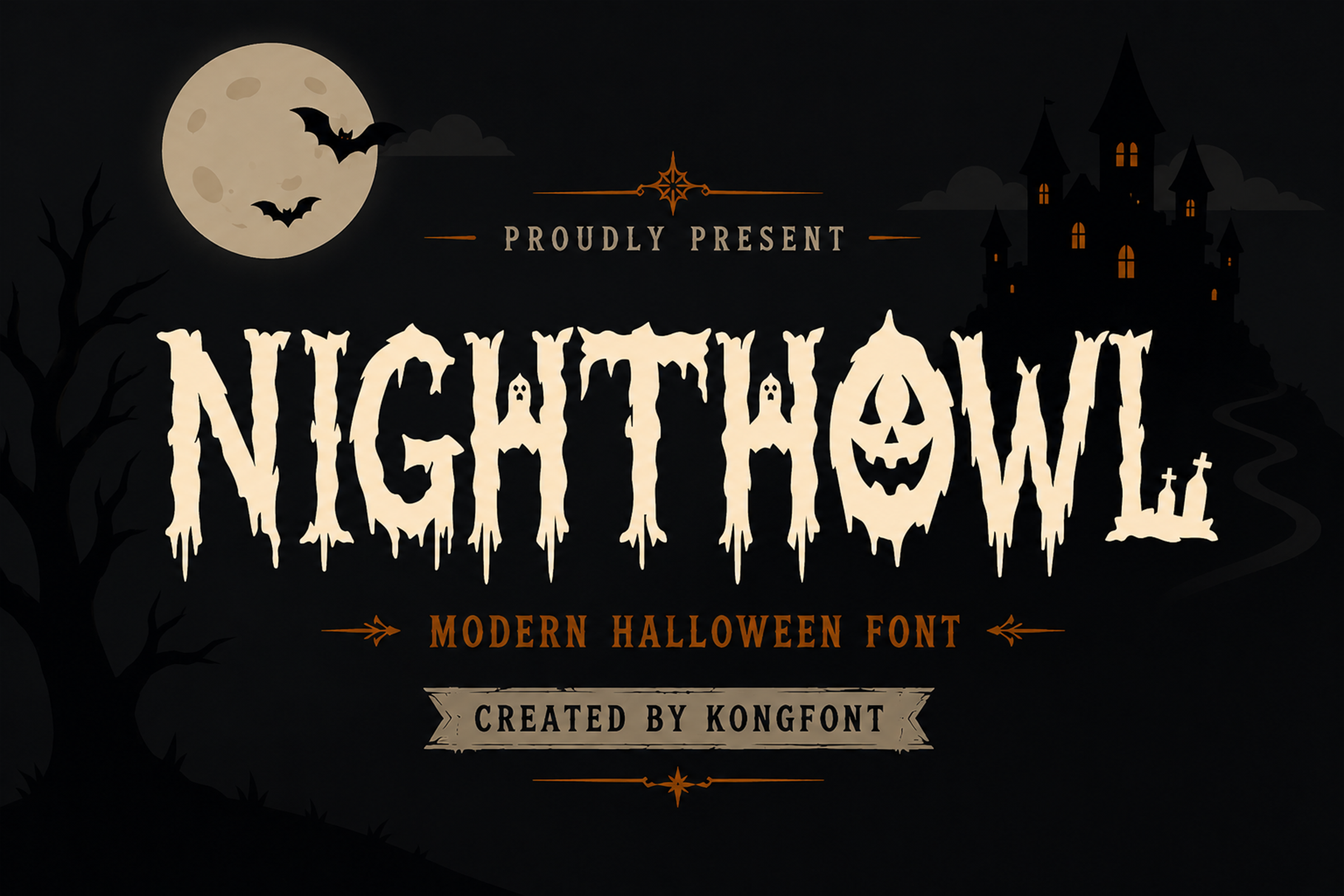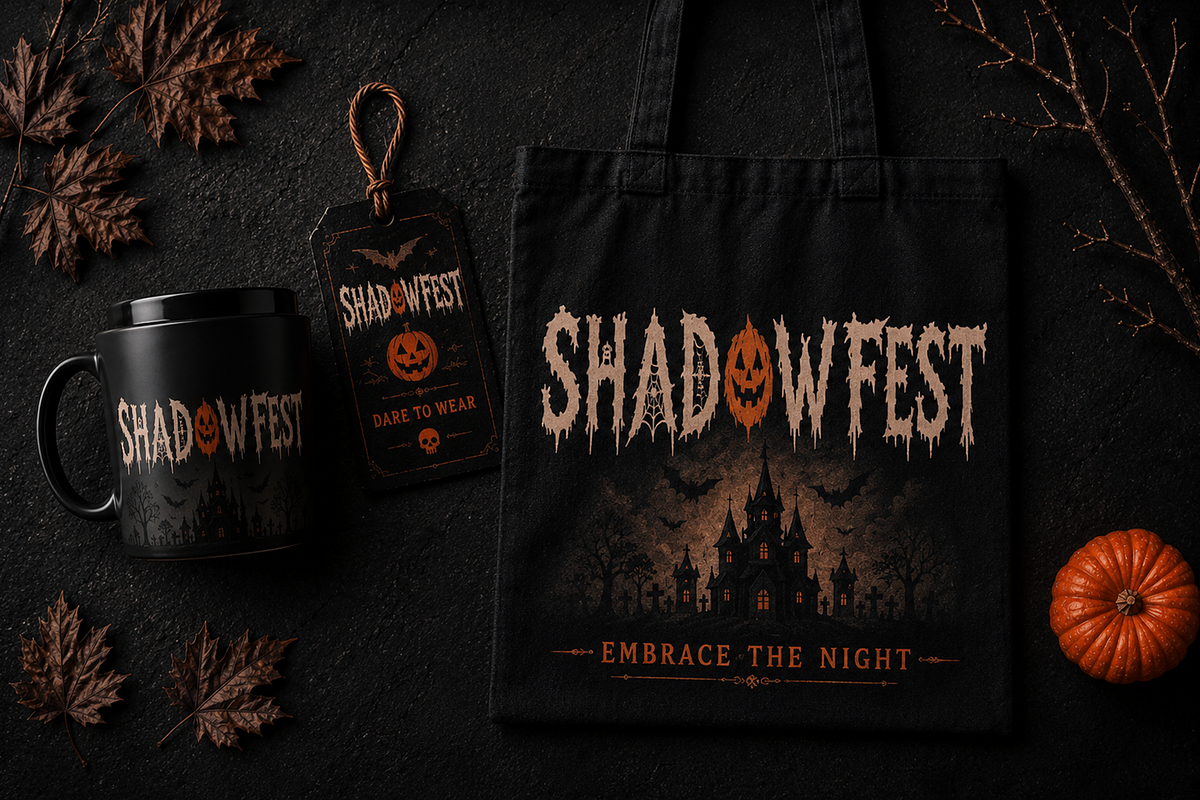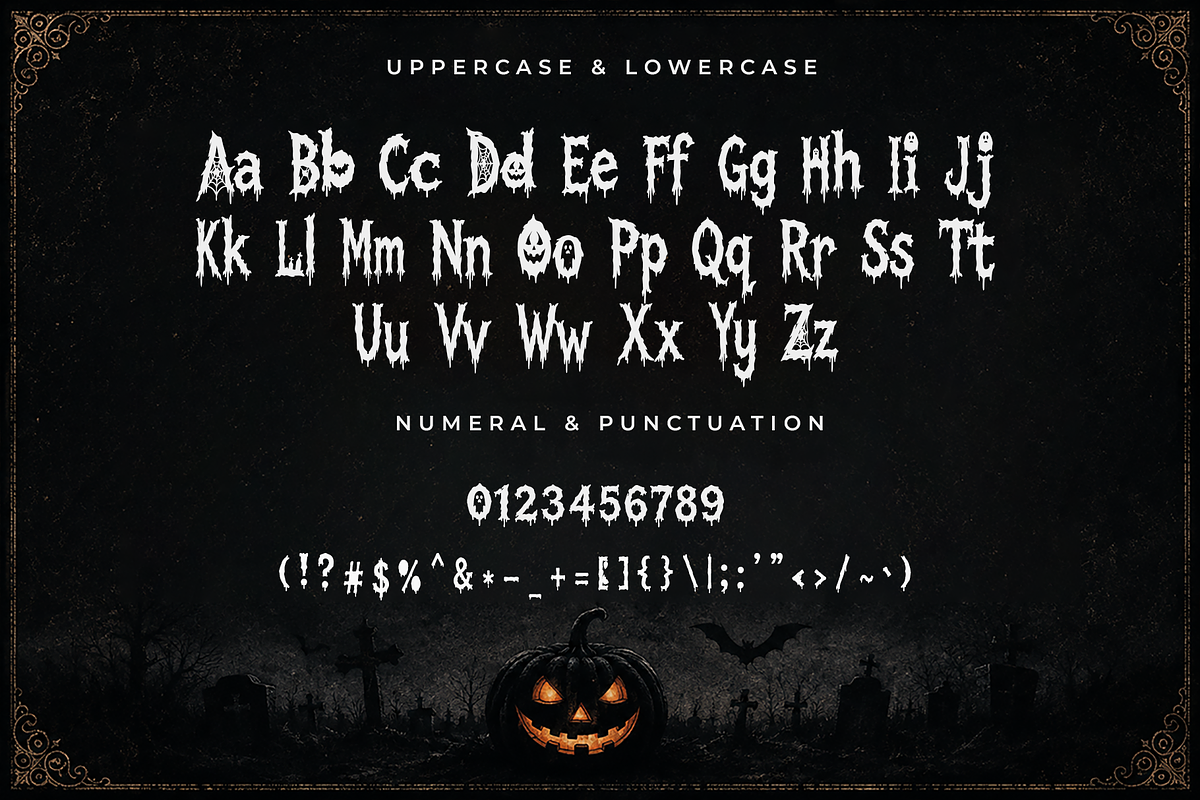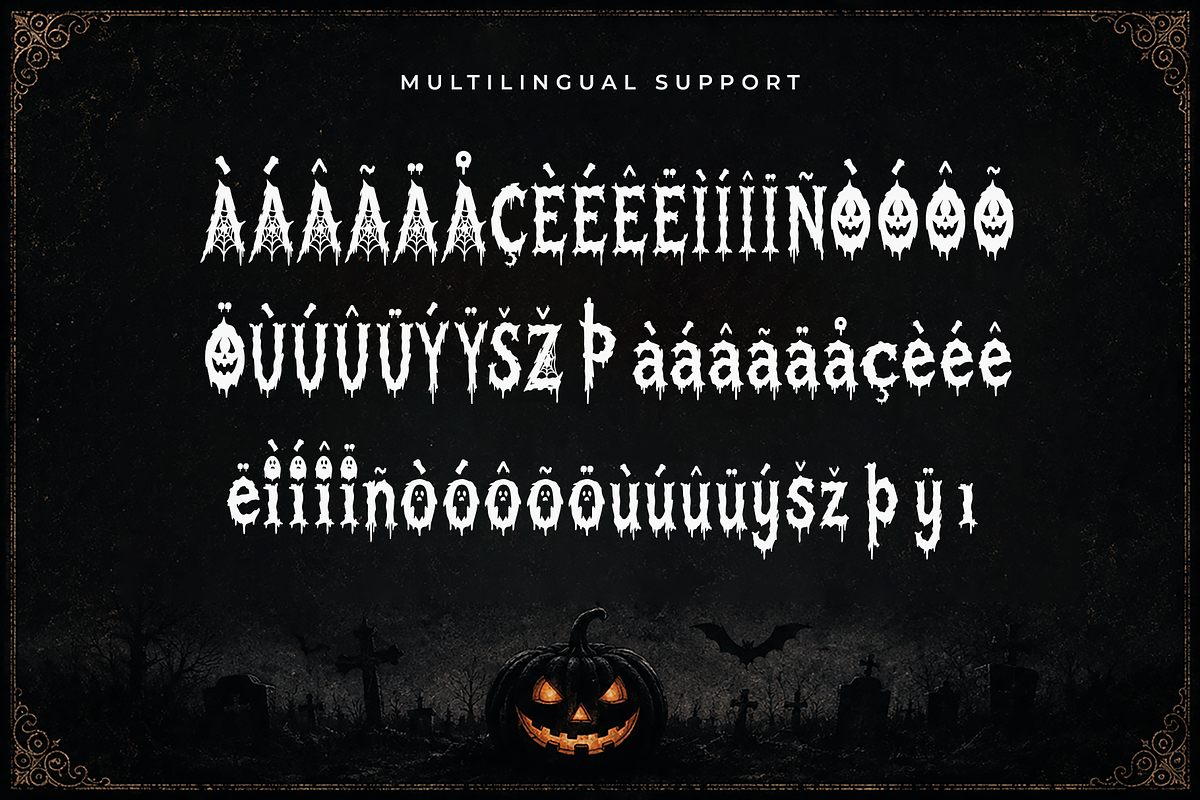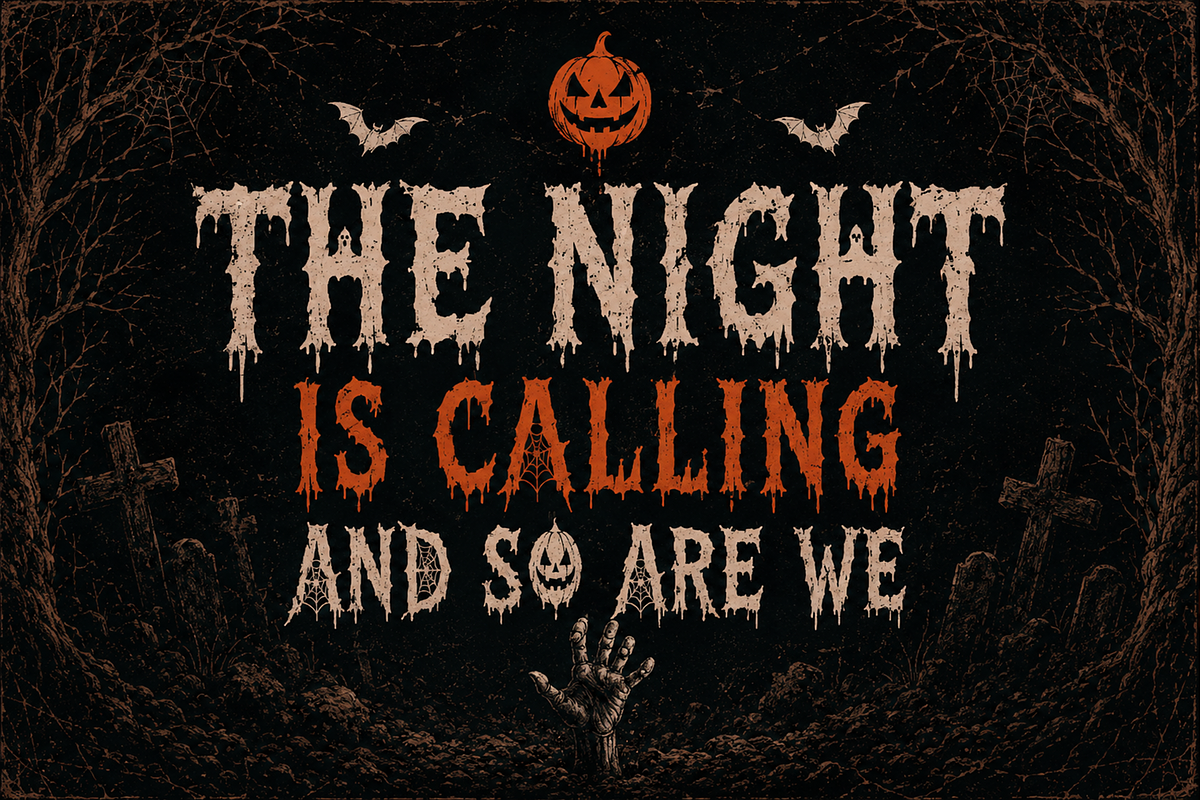
Nighthowl - Halloween Display Font
Nighthowl - Modern Halloween Horror Display Font
Meet "Nighthowl," a modern Halloween display font crafted with eerie shapes, distressed edges, dripping details, and a chilling horror personality. Inspired by haunted houses, moonlit nights, creepy forests, and classic Halloween imagery, Nighthowl gives every word a spooky and unforgettable presence.
Nighthowl works beautifully for pumpkin-themed artwork, ghost stories, supernatural branding, creepy event graphics, horror merchandise, gothic promotions, and dark seasonal campaigns. Its playful yet frightening character makes it suitable for both classic horror designs and fun Halloween projects.